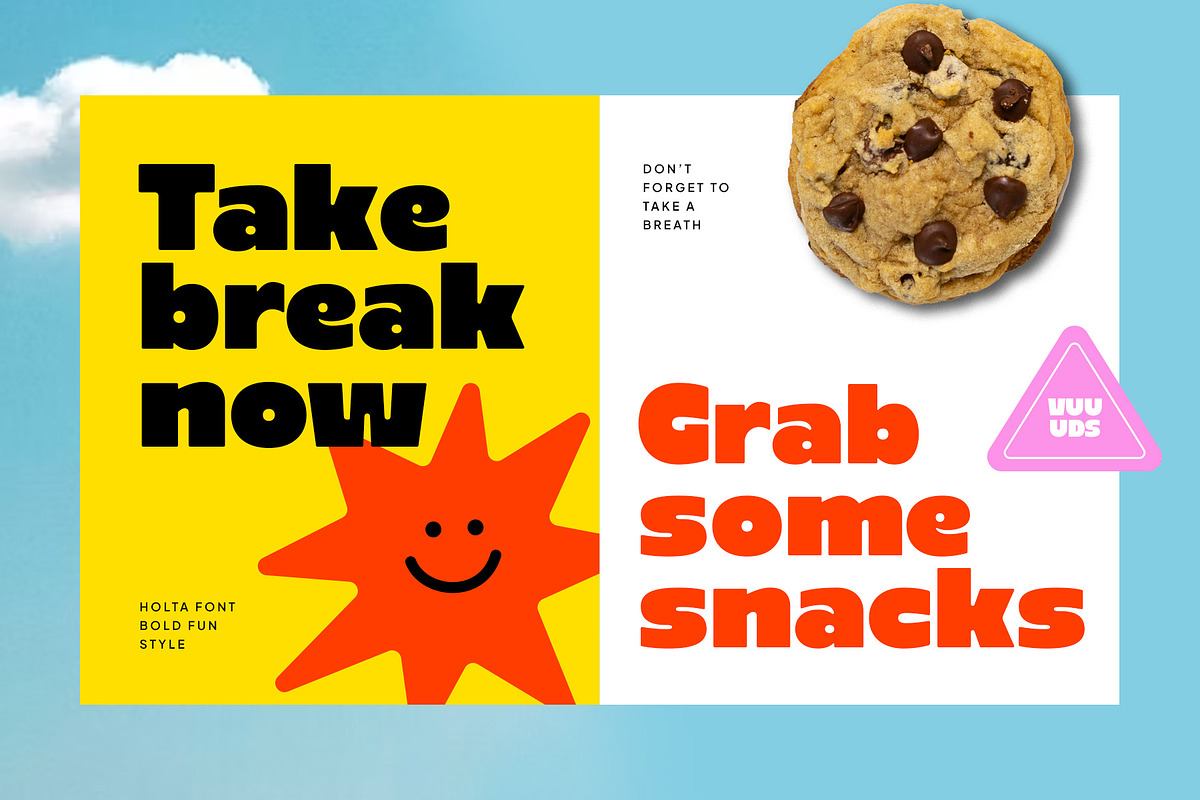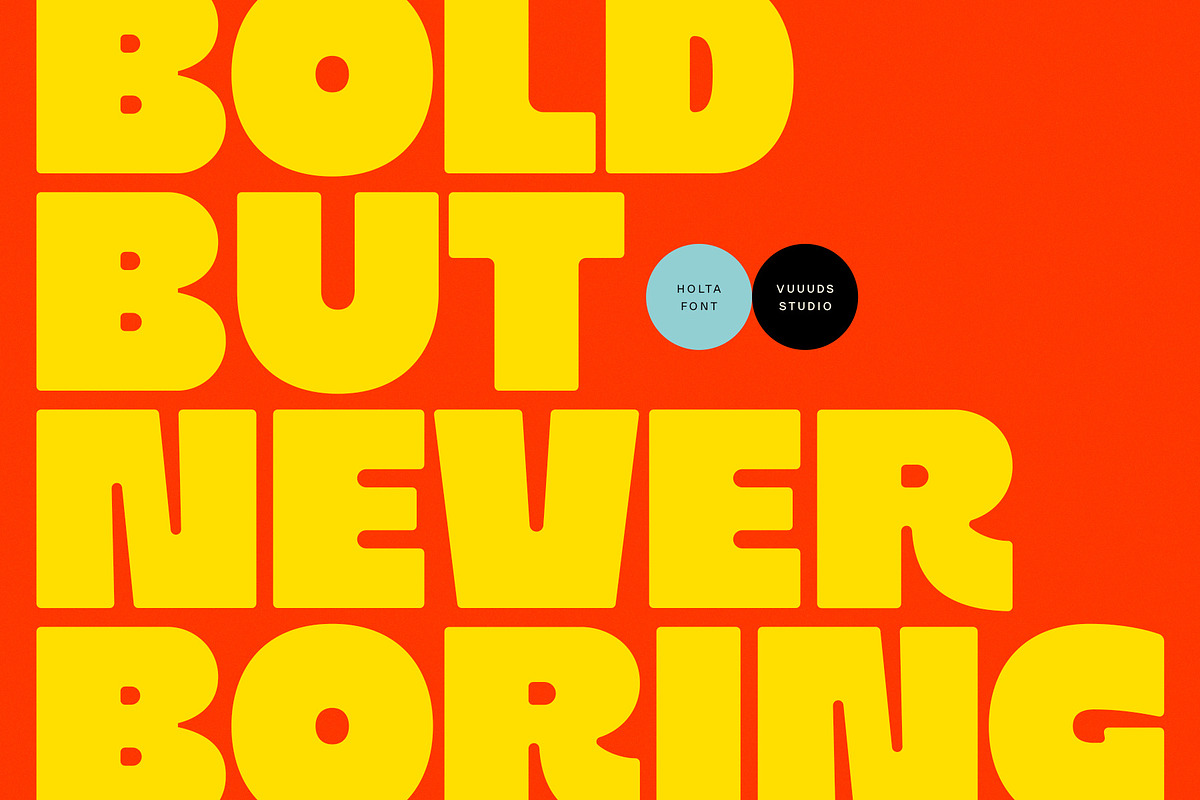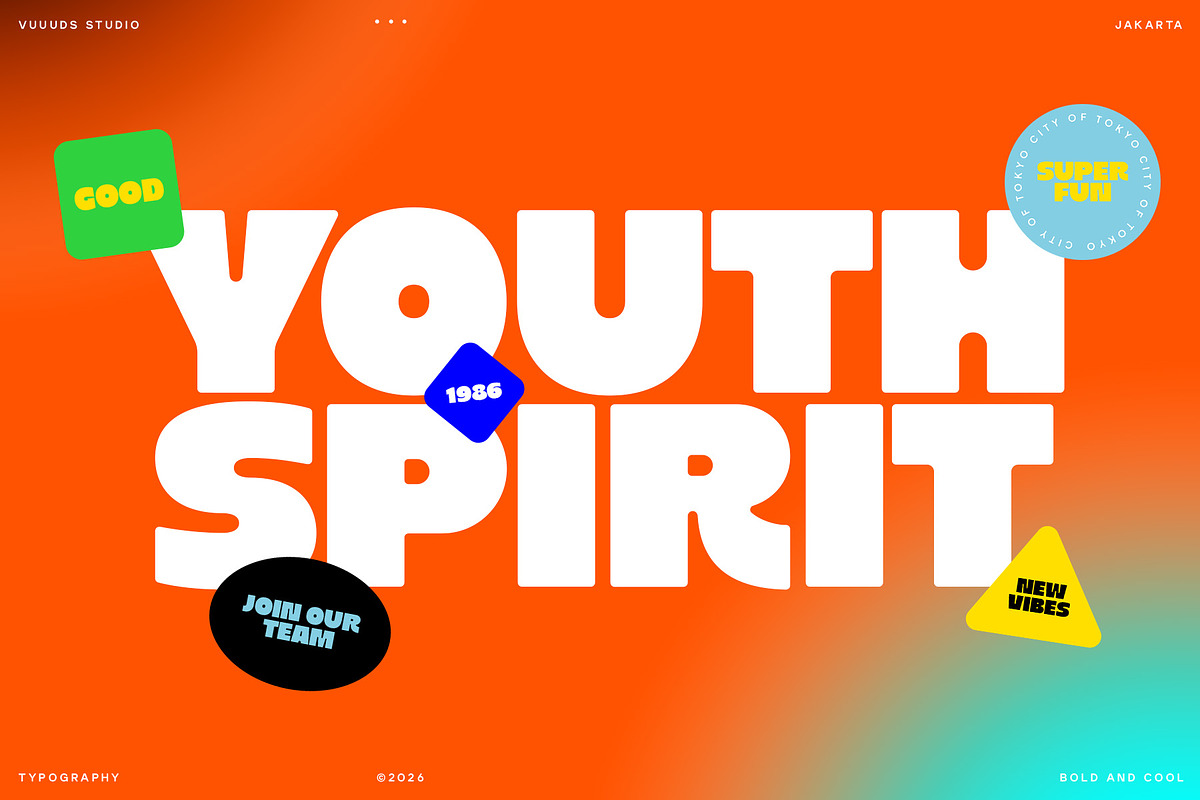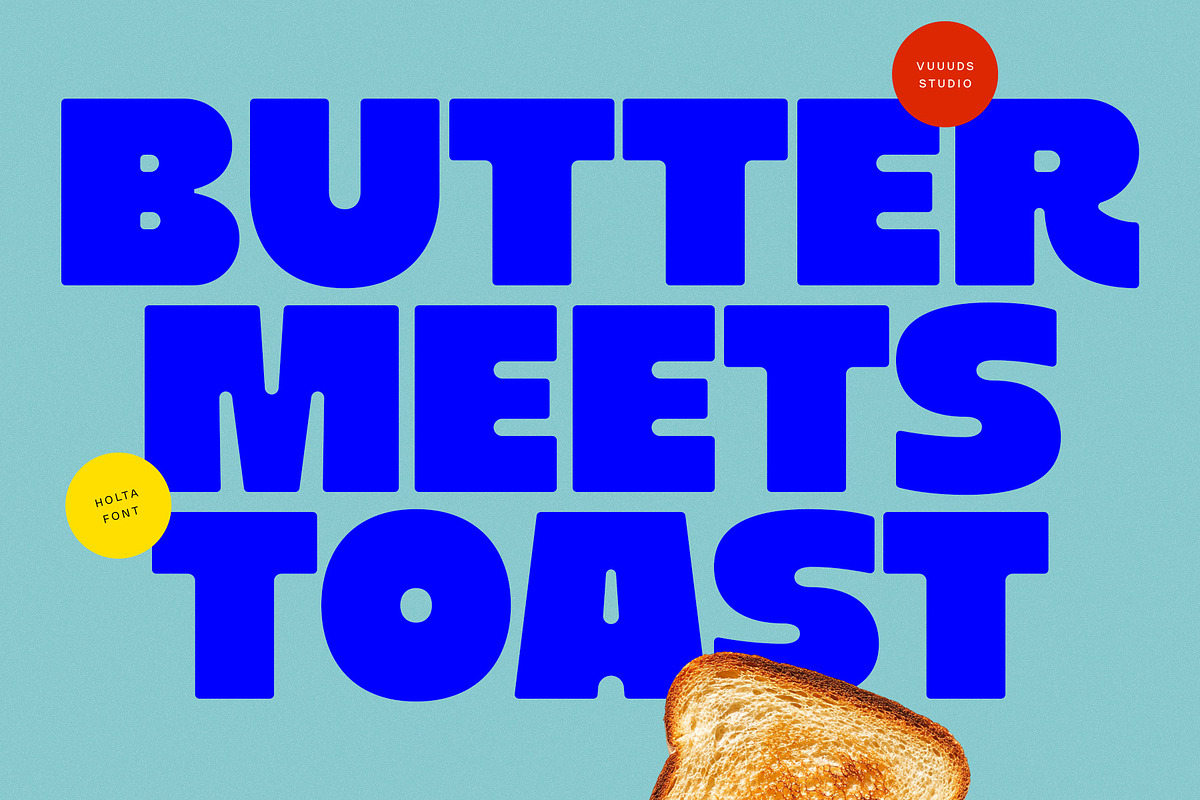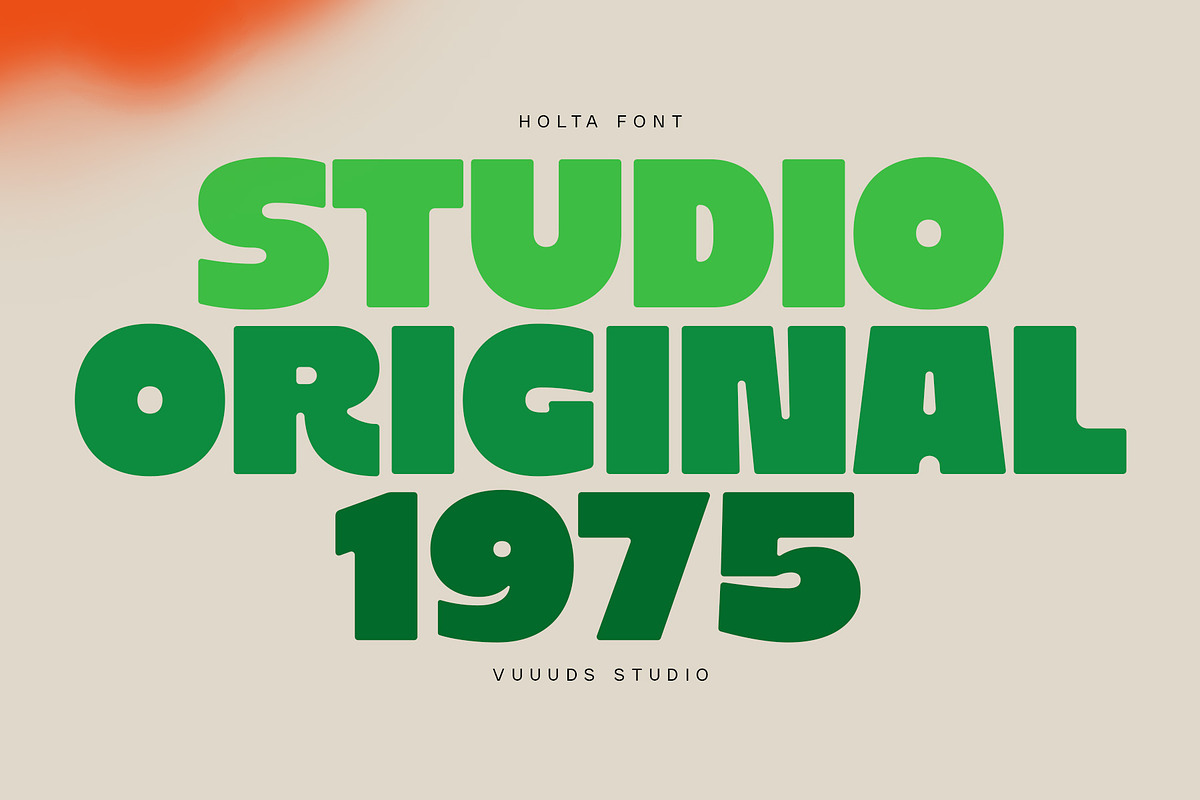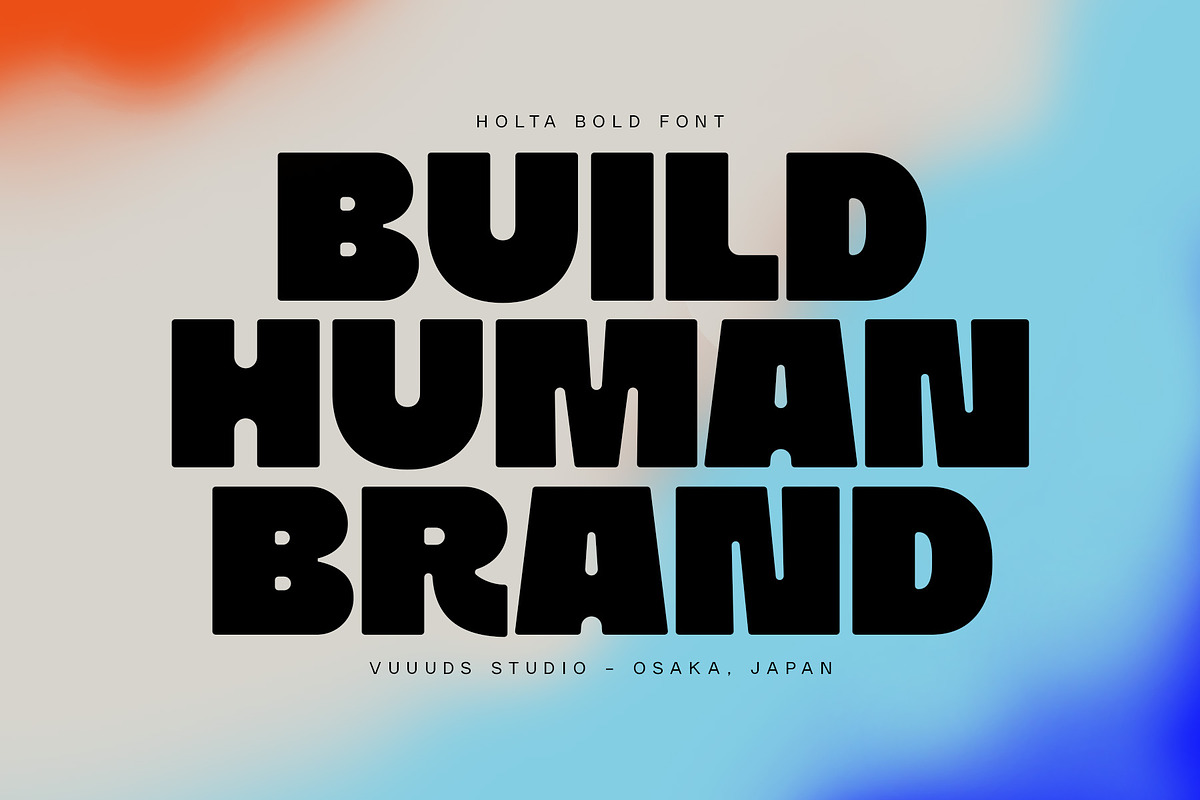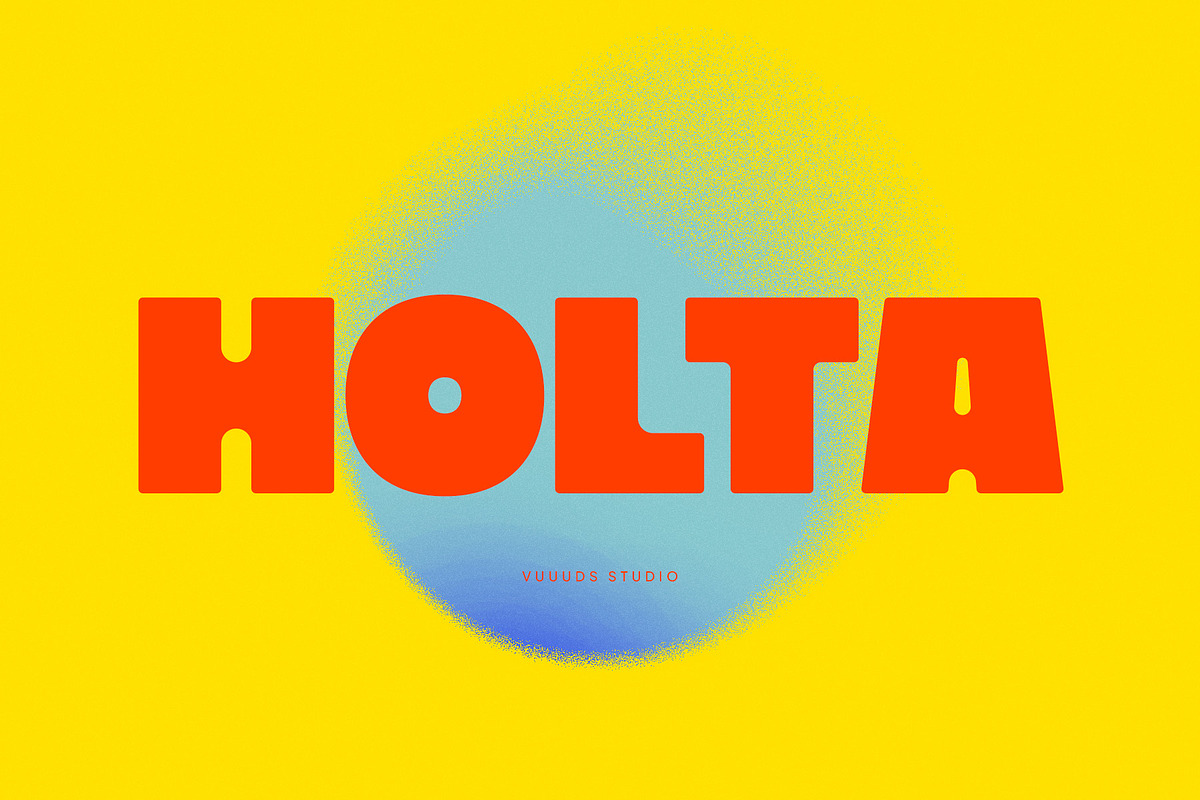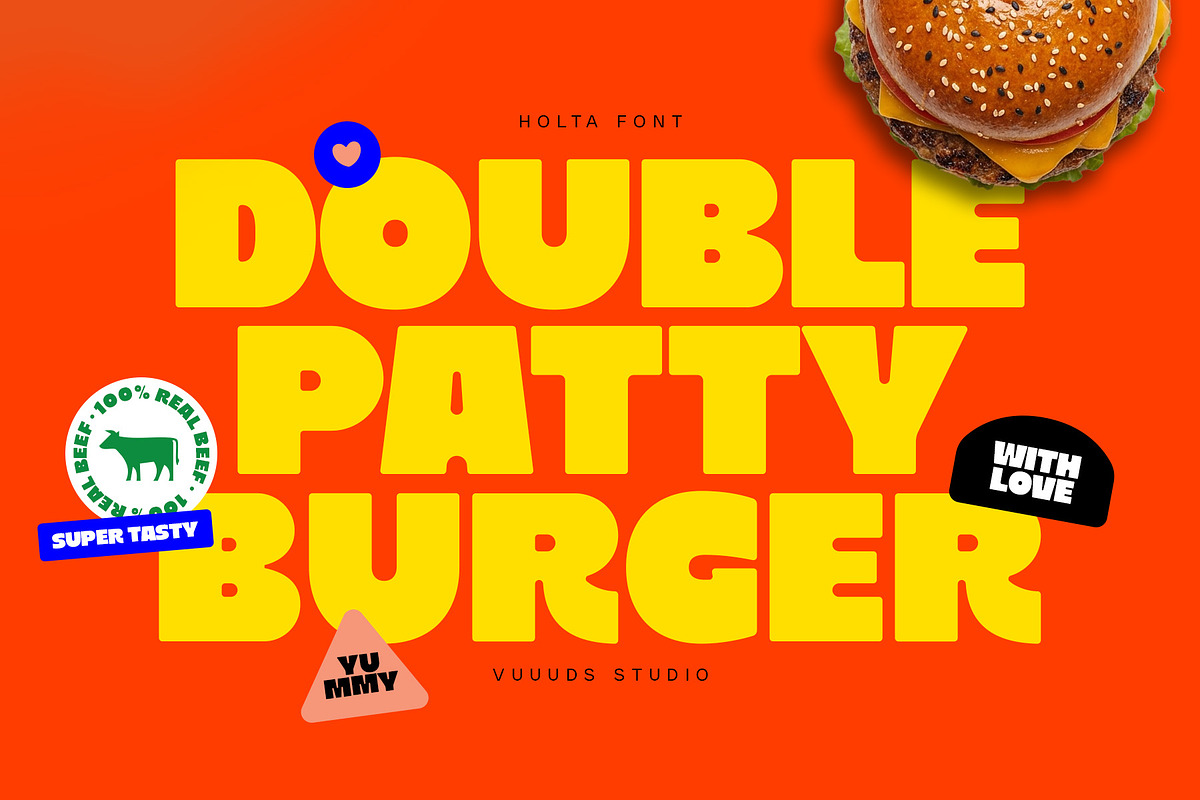
Holta
Meet Holta Font!
Unleash playful energy in your designs with this bold and heavy display font! Designed to command attention, its thick, friendly letterforms bring a fun and confident vibe to any project. Perfect for high-impact titles, eye-catching restaurant menus, bold logos, colorful posters, modern branding, and playful packaging that demands to be noticed